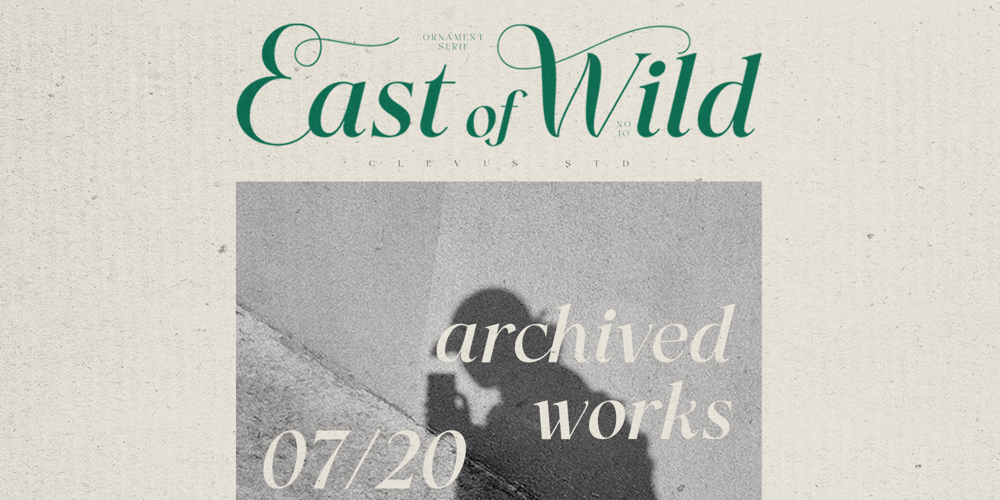
East of Wild Font Family was designed by Seyfullah TEMIZ and published by Clevus. East of Wild contains 1 styles and family package options. Proudly present East of Wild is a Ornament serif font with a touch of elegant.Font Features :Lettres, numbers, symbols, and punctuation28 alternates and ligaturesNo special software required they may be used even in canva, any basic program /website apps that allows standard fonts That’s it folks!Multilingual SupportLanguage Support: Danish, English, Estonian, Filipino, Finnish, French, Friulian, Galician, German, Gusii, Indonesian, Irish, Italian, Luxembourgish, Norwegian Bokmål, Norwegian Nynorsk, Nyankole, Oromo, Portuguese, Romansh, Rombo, Spanish, Swedish, Swiss-German, Uzbek (Latin)Follow My Shop For Upcoming Updates Including Additional Glyphs And Language Support. And Please Message Me If You Want Your Language Included or If There Are Any Features or Glyph Requests, Feel Free to Send me A Message. Kindly check over on Instagram! https://www.instagram.com/clevustudio/ Have a Good Day !